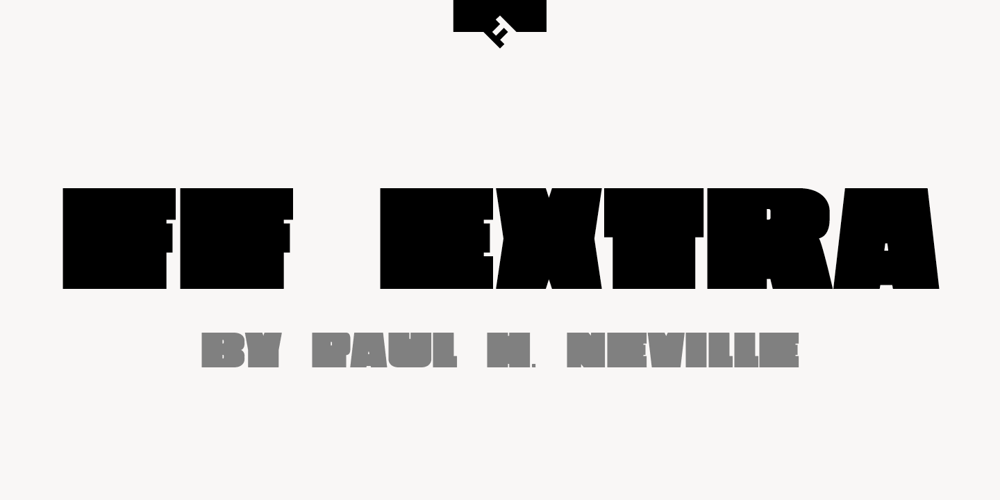
FF Extra Font Family was designed by Paul H. Neville and published by FontFont. FF Extra contains 2 styles and family package options. American type designer Paul H. Neville created this display FontFont in 1995. The family contains 2 weights: Condensed and Black and is ideally suited for editorial and publishing and poster and billboards. FF Extra provides advanced typographical support with features such as ligatures. It comes with proportional lining figures.